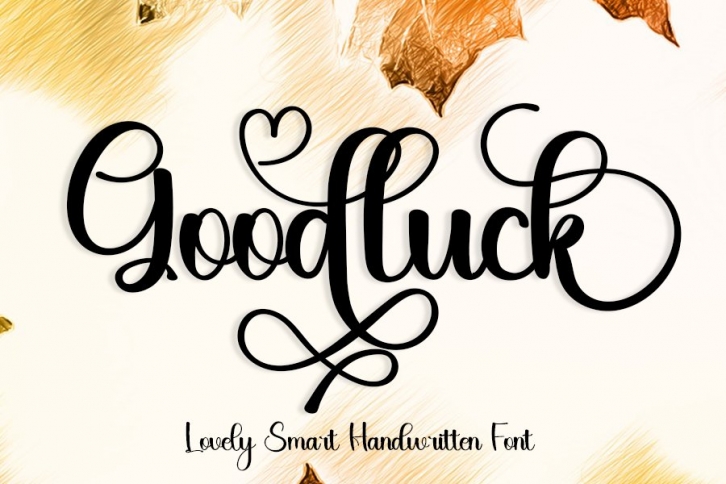
Goodluck is a beautiful font that was designed by InermediaSTUDIO. It's a great choice for designers and creatives who need such a font. It was released on August 23, 2022 and the file size is 15.74 MB. Goodluck may give a more youthful, expressive and casual look to your project. It is a very beautiful, refined, elegant, and high-quality font.